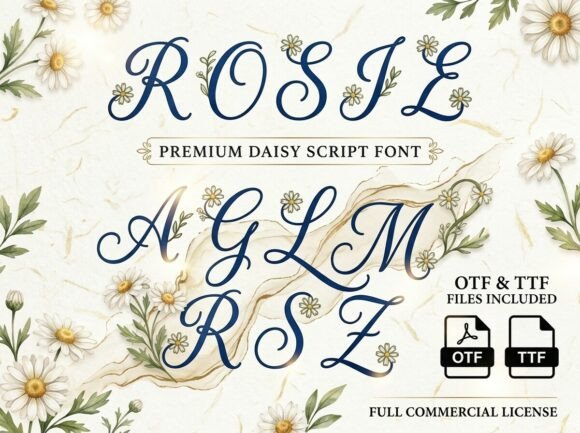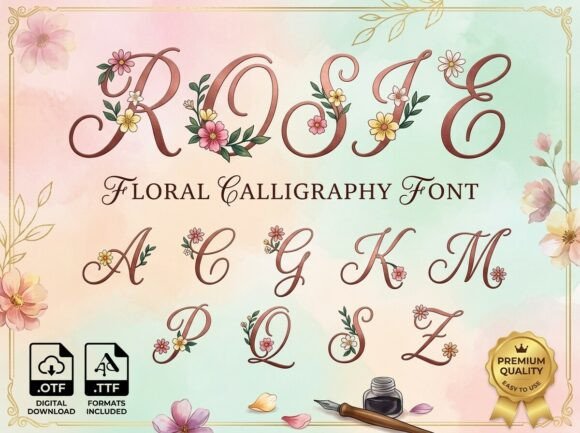
Introduction to Rosie Font
As you sit down to plan your next creative project, you can’t help but feel the pressure to stand out from the crowd. Whether it’s a wedding invitation, a social media campaign, or a branding package, you want your design to be nothing short of breathtaking. That’s where the perfect font comes in – and that’s exactly what you’ll find with the enchanting Rosie Font.
Imagine yourself surrounded by a lush garden, with delicate daisies and winding vines adorning every corner. This is the essence of the Rosie Font, a premium daisy script font designed to bring a touch of nature’s charm to your design. With its high-quality, hand-drawn details and transparent background, Rosie is the ultimate design resource for any creative project.
Key Features of Rosie Font
- High-quality, professional design suitable for various creative projects, including logos, posters, and marketing materials.
- Features a transparent background, allowing for seamless integration with any background image or color.
- Designed with a clean and modern aesthetic, making it perfect for a variety of design applications, including branding, advertising, and packaging.
- Can be easily customized using font editing software, making it a versatile design resource for any creative project.
Honest Review: Rosie Font
I recently stumbled upon the Rosie Font, a beautiful, high-quality font that’s perfect for any creative project. I was impressed by its clean design and the fact that it’s a free download.
- ✨ High-quality design that’s perfect for printing or digital use
- ✨ Transparent background, making it easy to customize and layer over other elements
- ✨ Perfect for headings, titles, and body text
- ⚠️ Limited font styles and variations (only a few options available)
- ⚠️ Not ideal for complex or multi-layered designs
Overall, I’m really impressed with the Rosie Font. It’s a great resource for designers who want a high-quality, free font that’s easy to use. While it may have some limitations, it’s a solid choice for most creative projects.
To get the most out of Rosie Font, use it on a transparent background to add a touch of elegance to your design. You can also combine it with other high-quality design resources to create a unique and eye-catching visual identity for your creative project.
Rosie Font is ideal for use in branding, logos, and typography-based designs. Its high quality and free download make it a popular choice among designers and creatives. You can also use it in presentations, reports, and other documents to add a touch of sophistication and professionalism.